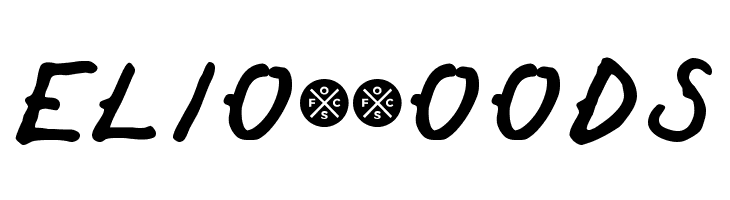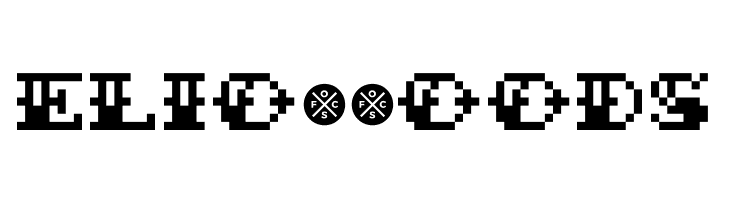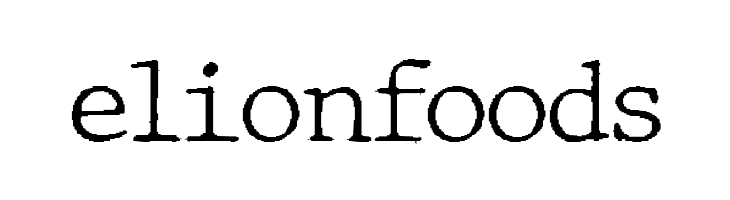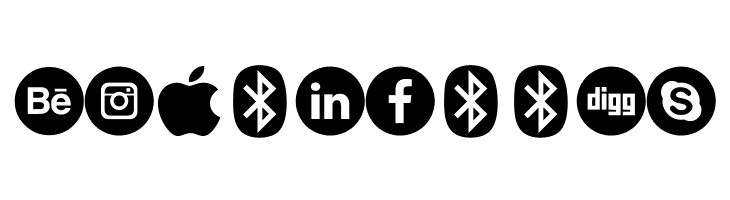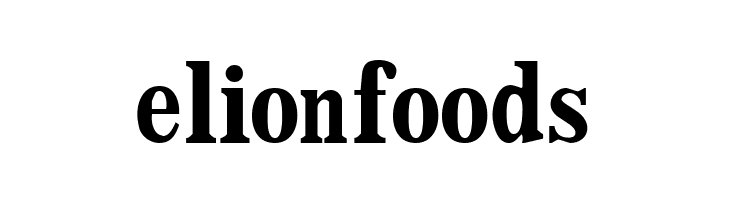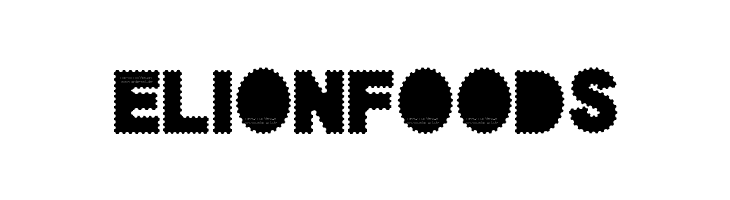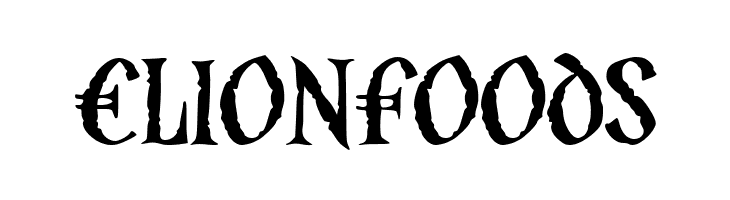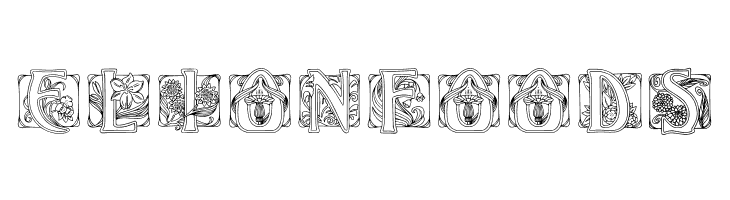
Bold, circular icon set for tech and social media brands.
A bold, dynamic font with playful, irregular forms and high contrast.
A bold, distressed font with a rugged, industrial style.
A bold, decorative font with snow-capped letters and a festive winter theme.
A rugged, textured font with a natural, adventurous feel, resembling wood or bark.
Bold, italicized serif font with a strong and dynamic presence.
A bold, high-contrast serif font with a classic and authoritative style.
A bold, modern font with clean, geometric lines and consistent styling.
A playful, dotted outline font perfect for whimsical designs.
A playful, bold font with a perforated, stamp-like edge.
An elegant, decorative font with ornate swashes and vintage charm.
An ornate Blackletter font with intricate, angular designs and historical elegance.
A bold, decorative font inspired by ancient scripts with angular, geometric shapes.
A futuristic, abstract font with geometric shapes and a minimalist design.
A bold, decorative font with a unique striped pattern for impactful display use.
A casual, handwritten font with fluid and dynamic strokes.
A bold, gothic-inspired font with sharp, angular edges and dramatic flair.
A decorative and artistic font with a medieval-inspired style and elegant curves.
An ornate, decorative font with floral-themed boxed uppercase letters.
An ornate and decorative font with intricate floral designs within each character.
A bold, decorative font with a unique blend of traditional and modern elements.
A decorative dingbat font with detective-themed silhouettes and illustrations.
A decorative font with intricate star and swirl patterns inside bold, outlined characters.
A playful, decorative font with letters hanging from a clothesline.
A playful, nautical-inspired monoline font with whimsical curves and consistent stroke width.
A whimsical and playful font with decorative, curly serifs and a hand-drawn appearance.
A playful, bold handwritten font with a dynamic and informal style.
A pixelated, retro-style font with a bold, digital appearance.
A bold, decorative font with a tattoo-inspired, nautical aesthetic and italic slant.
A bold, gothic-inspired font with sharp, angular lines and dramatic serifs.
A whimsical, vintage-style font with bold serifs and playful character shapes.
A bold, expanded serif font with a strong, authoritative presence.
A thin, monospaced typewriter-style font with a vintage appeal.
A bold, futuristic font with geometric shapes and horizontal line patterns.
A bold, decorative font with a futuristic, space-themed aesthetic.